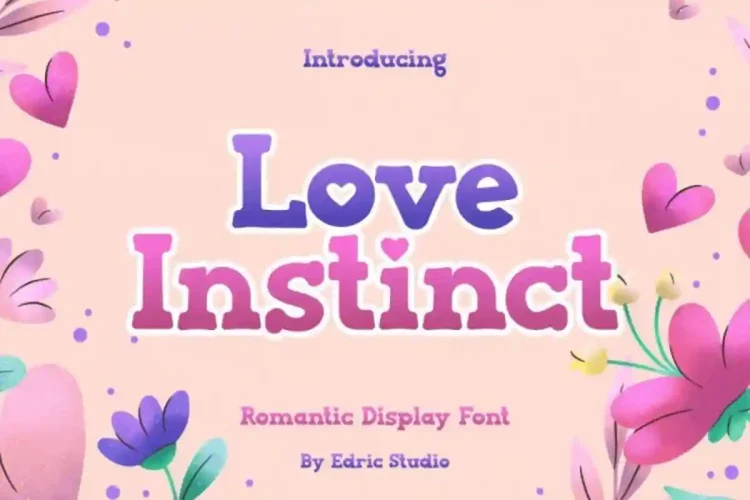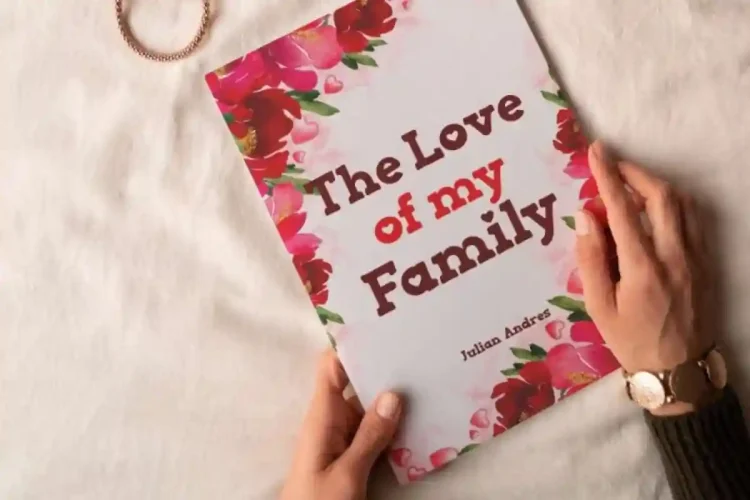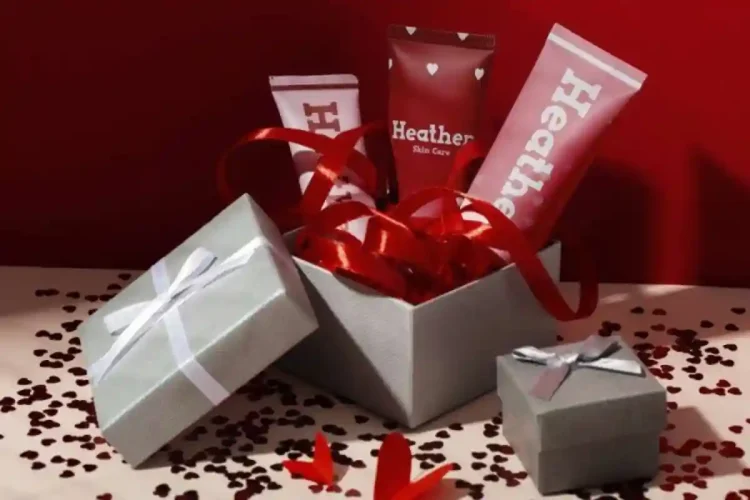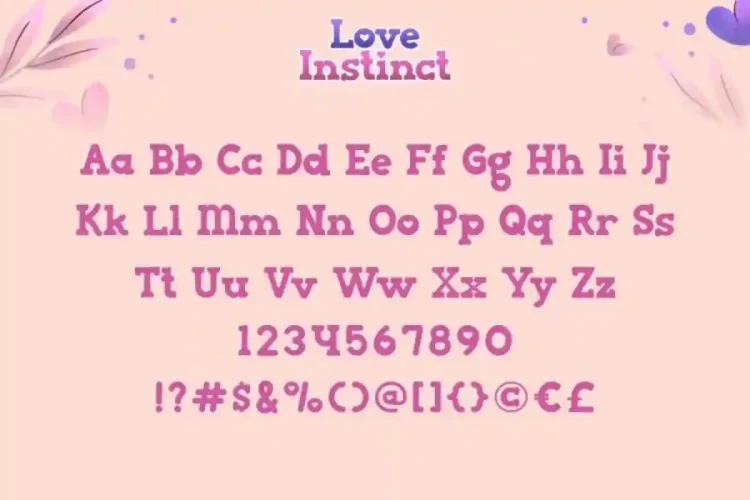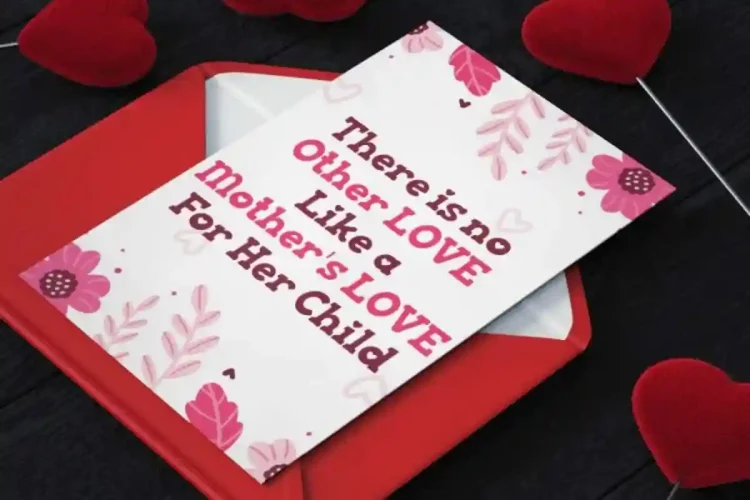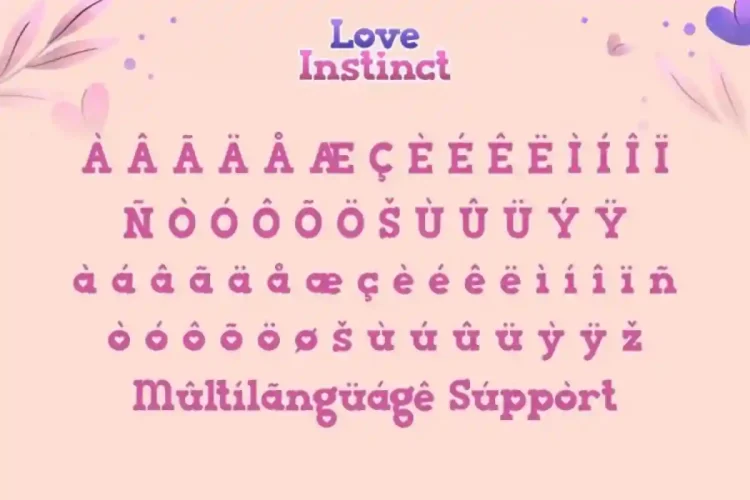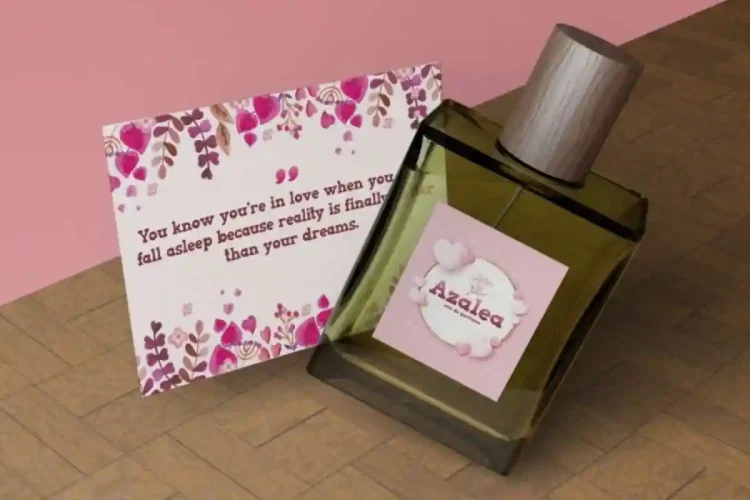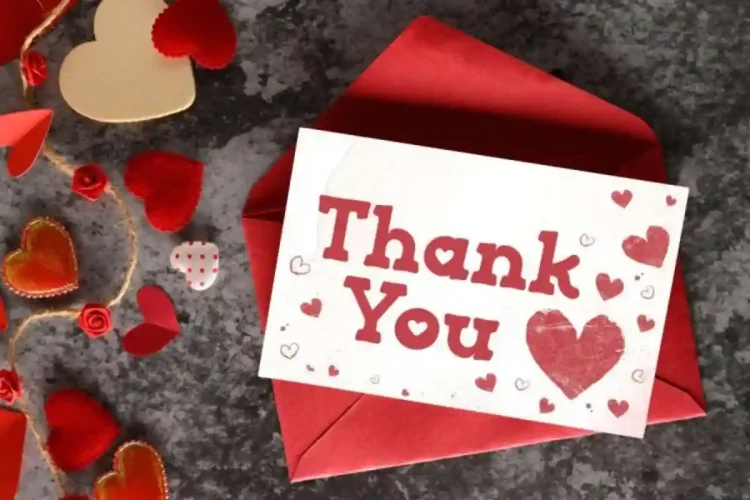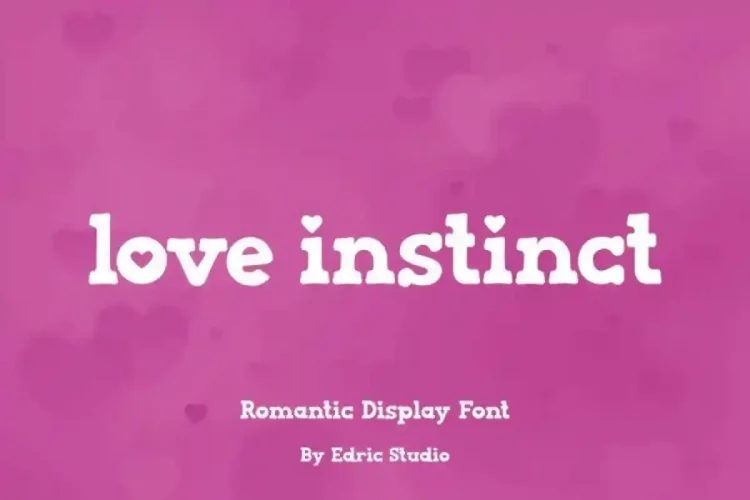
Love Instinct Display Font a charming display typeface created by EdricStudio. This unique typeface has a love theme that gives a touch of romance and would be perfect for industries like author, bakery, boutique, cosmetic, craft, event tenant, homeware, perfume, printing, and more!
Love Instinct Display Font comes with a full set of Uppercase and Lowercase Basic Characters, Number, large range of Punctuation and Symbol. It has a stunning characters set, perfectly managed with well spaced and kerning.
Love Instinct Display Font is a playful typeface with unique decoration in each character. Love Instinct Font has been fully tested to work smoothly with Adobe Illustrator, Photoshop, InDesign, and even Microsoft Word. PUA Encode Characters means you can access all the glyphs and other characters easily – Fully accessible without additional design software.